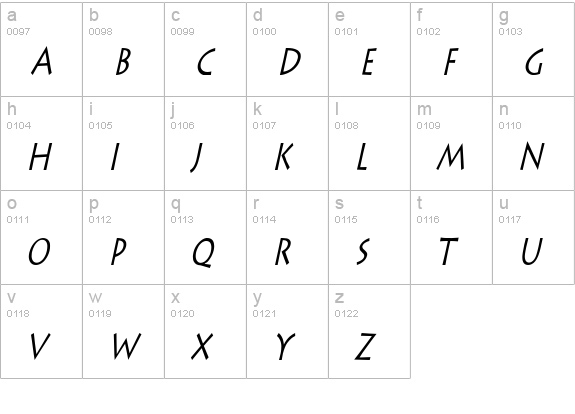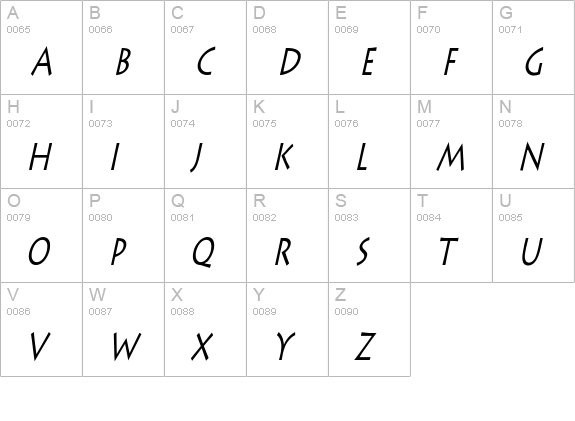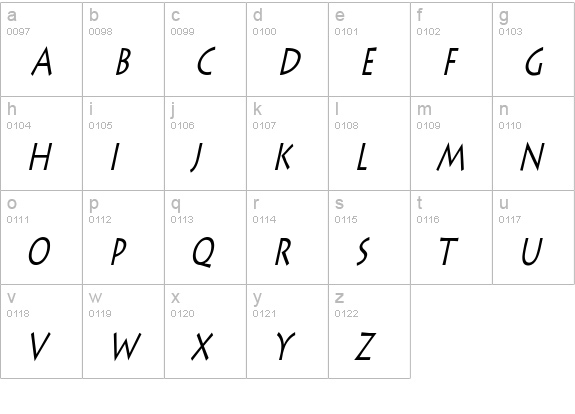
Liste Thin Italic Font Details
Liste Thin Italic is a delicate, low-contrast, italic variant in the Liste typeface family \xE2\x80\x94 well suited to fashion editorial, minimal branding, and high-contrast display.
Liste Thin Italic font is a sleek and elegant typeface that exudes sophistication and modernity. Its slender letterforms and subtle slant create a sense of movement and fluidity, making it perfect for adding a touch of style to any design project. The delicate curves and sharp angles of this font give it a unique and contemporary look that is sure to make a statement. What's even better is that Liste Thin Italic font is available for free download at FontsMarket.com. This means that you can easily access and use this stunning font in your designs without any cost. Whether you're working on a professional project or a personal creative endeavor, Liste Thin Italic font is a versatile and eye-catching choice that will elevate your work to the next level. So why wait? Download Liste Thin Italic font today and experience the beauty and elegance it brings to your designs.